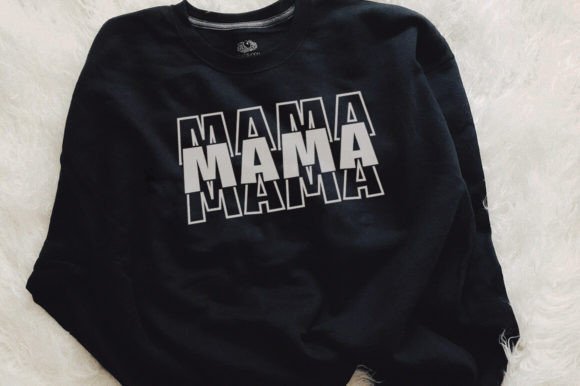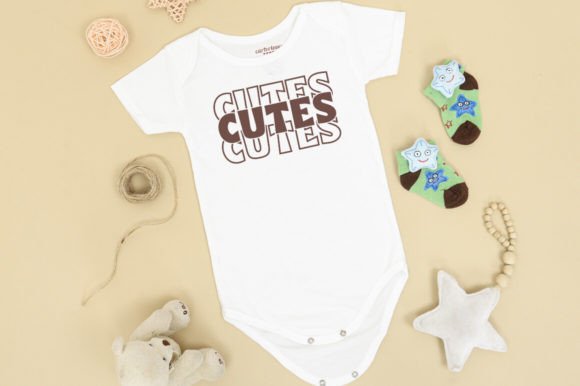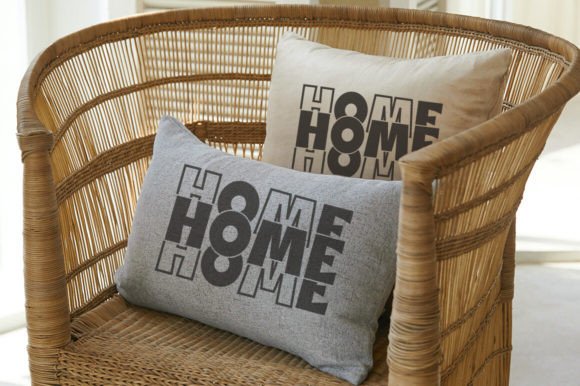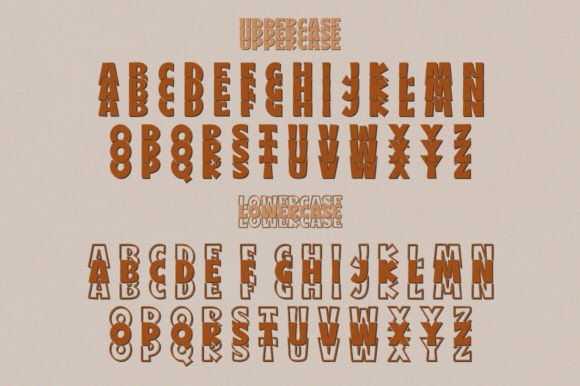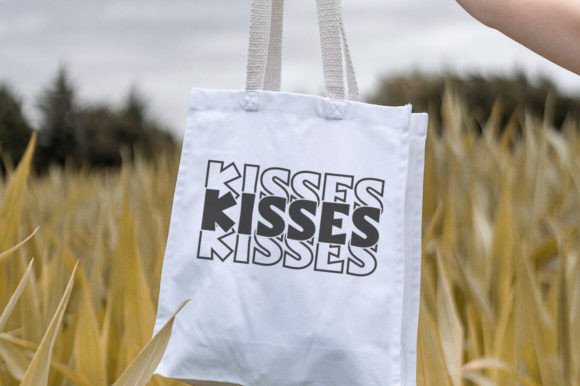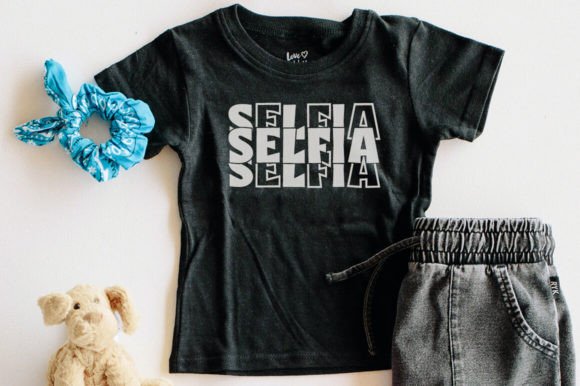
Introduction to Kenzif Font
Have you ever found yourself stuck in front of your computer, staring at a blank canvas, trying to come up with the perfect design for your next creative project? The pressure to create something unique and eye-catching can be overwhelming, but what if you had the right tools at your fingertips? Enter the Kenzif Font, a stylish stacked font that’s about to revolutionize the way you approach design.
Whether you’re working on branding materials, social media graphics, or even movie covers, the Kenzif Font is the perfect addition to your design arsenal. With its transparent background and versatile style, you’ll be able to create stunning designs that stand out from the crowd.
Key Features of Kenzif Font
• High-quality design resource suitable for creative projects
• Features a transparent background for easy composition and customization
• High-resolution font with a resolution of 300 DPI for crisp and clear display
• Unique, modern design aesthetic that can add a touch of sophistication to any project
Honest Review: Kenzif Font
I recently stumbled upon the Kenzif Font, and I must say, it’s been a great addition to my design resource arsenal. This font has been a game-changer for my creative projects, offering a unique and elegant aesthetic that’s hard to find.
What works well: ✨ The Kenzif Font is incredibly versatile and can be used in a wide range of applications, from headings to body text. Its clean and minimalist design makes it perfect for modern designs. Additionally, the font is available for free download, which is a huge plus for designers on a budget.
What could be improved: ⚠️ The font’s transparent background can sometimes make it difficult to read against certain backgrounds. Additionally, the font family is relatively small, which may limit its use in certain design scenarios.
Overall, I’m thoroughly impressed with the Kenzif Font. Its high quality and unique design make it a valuable asset for any designer. While it may have some limitations, I believe the benefits far outweigh the drawbacks.
• Unique and elegant design
• High quality and clear typography
Tips for Getting the Most Out of Kenzif Font
Use Kenzif Font to add a touch of elegance to your design projects. This high-quality font is perfect for creative projects and can be used with a transparent background to give your designs a unique look. You can also use it to create a sense of sophistication and professionalism in your designs.
Yes, the Kenzif Font is designed with a transparent background, making it perfect for designs that require a high level of customization and flexibility. You can easily combine the font with other design elements and backgrounds to create unique and eye-catching designs.